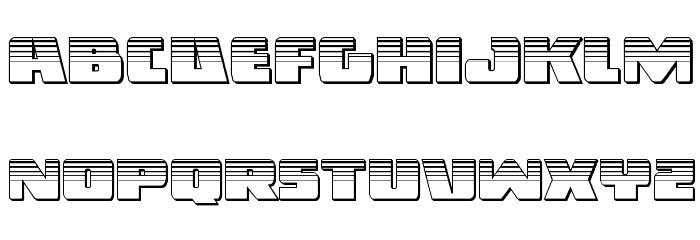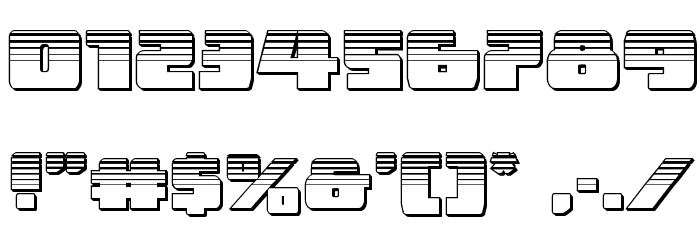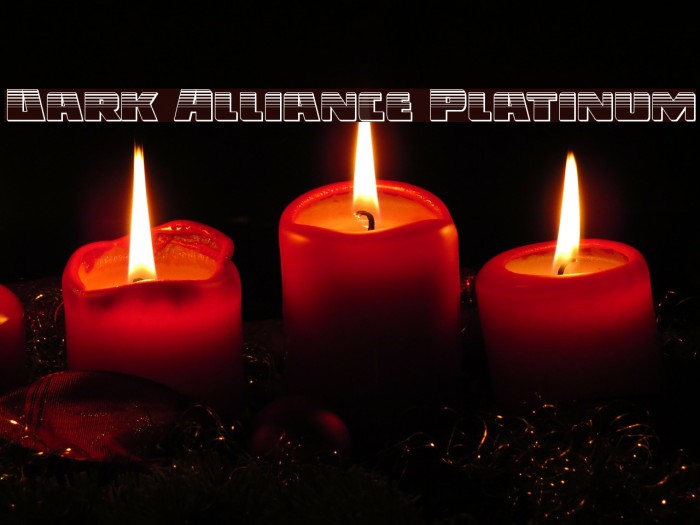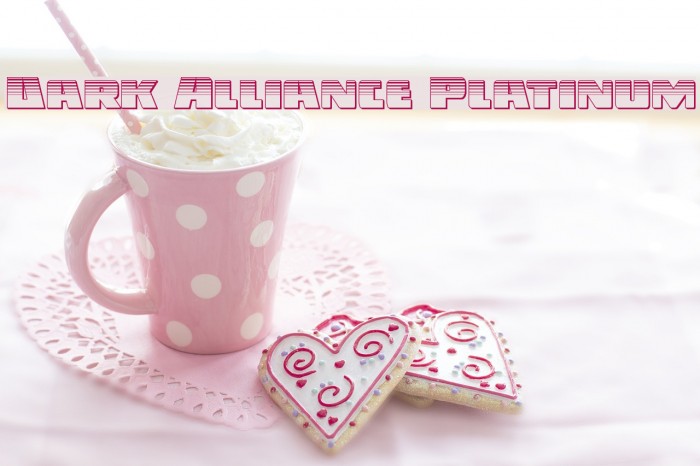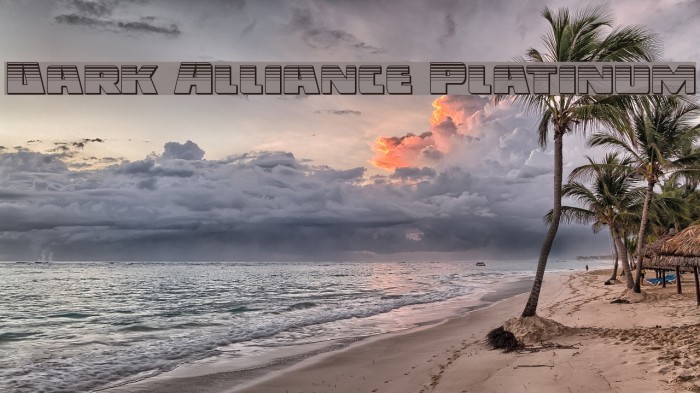
Dark Alliance Platinum Font
This font features a bold, futuristic design with a three-dimensional effect created by layered lines and shadows. The characters are uppercase and have a geometric, block-like structure, giving them a strong and impactful appearance. The design incorporates sharp angles and clean lines, enhancing its modern and tech-inspired aesthetic. The numbers and special characters follow the same style, ensuring consistency across all glyphs. This font is ideal for projects that require a bold and attention-grabbing typeface.
A bold, futuristic font with a 3D effect and geometric design.
- Proposed Projects: Perfect for sci-fi themed posters, video game titles, technology branding, and futuristic event invitations.
- Overall Style: Futuristic